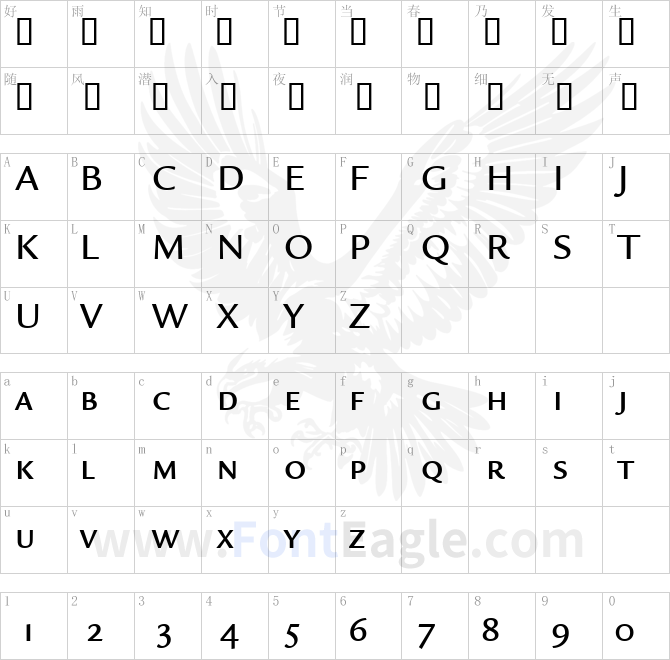
- Font name:Legacy Sans Md SC ITC TT
- Font Subfamily ID:Legacy Sans Md SC ITC TT Medium
- Font Full Name:Legacy Sans Md SC ITC TT Medium
- Postscript:LegacySansMdSCITCTTMedium